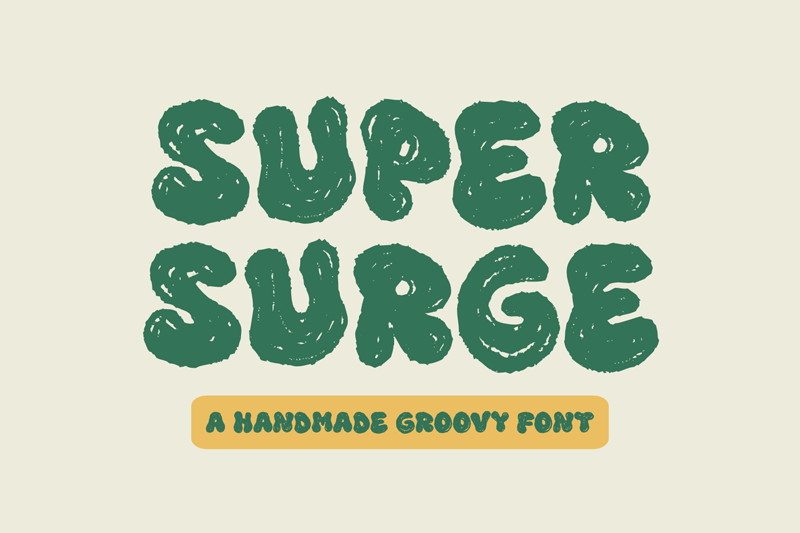
Preview and download Super Surge Font. Created by fsuarez913 in Fancy Groovy styles with Free for personal use license.
This font is for PERSONAL USE ONLY!. If you want to use this font for commercial purposes, you will need to purchase a commercial license. You can purchase a commercial license at https://nhfonts.etsy.com/listing/1752664602/super-surge-font Super Surge is a groovy, textured font with an organic feel, created handmade. It is a playful and dynamic font that is perfect for adding a touch of personality to any project. |